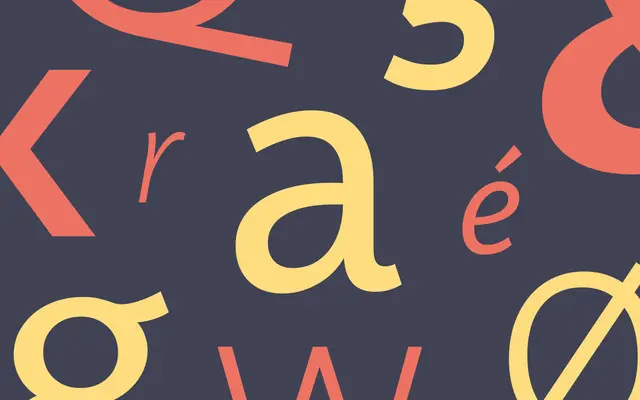
Lemance
Dalton Maag · Damien Collot · 2017
A humanist sans drawn from research into the calligraphic origins of italics, with vibrant energy across upright and italic cuts.
A humanist sans by Damien Collot, drawn from his research into the calligraphic origins of italics and how that lineage has shaped typography. The result is a family that reads as elegant and characterful, with italics that carry real handwriting energy rather than slanted uprights. Suits editorial, culture and identity briefs that want warmth without going fully into script.
Dalton Maag classifies Lemance as a humanist sans typeface inspired by its designer's research into the calligraphic origins of italics and their influence on typography.